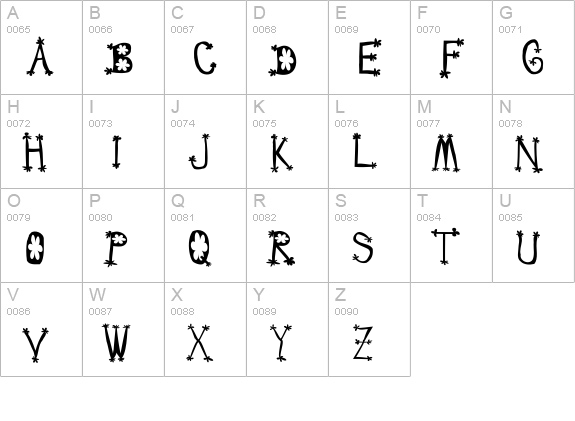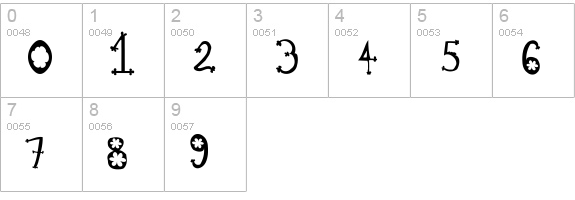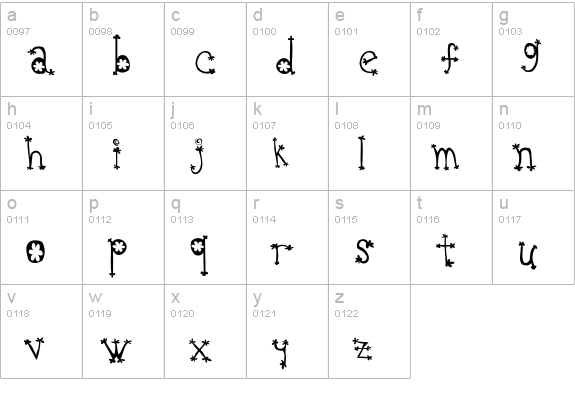
Oldie Splat Lyngam Font Details
Oldie Splat Lyngam font is a unique and quirky display typeface that exudes a sense of nostalgia and whimsy. With its hand-drawn appearance and playful splatters, this font brings a touch of retro charm to any design project. The irregular shapes and uneven lines give Oldie Splat Lyngam a distinct character that is sure to stand out. Best of all, Oldie Splat Lyngam font is completely free to download at FontsMarket.com. This means you can add this delightful typeface to your collection without any cost. Whether you're working on a poster, flyer, or branding project, Oldie Splat Lyngam font is a fantastic choice that will bring a fun and creative touch to your designs. Download it today and let your creativity soar with this charming and whimsical font.